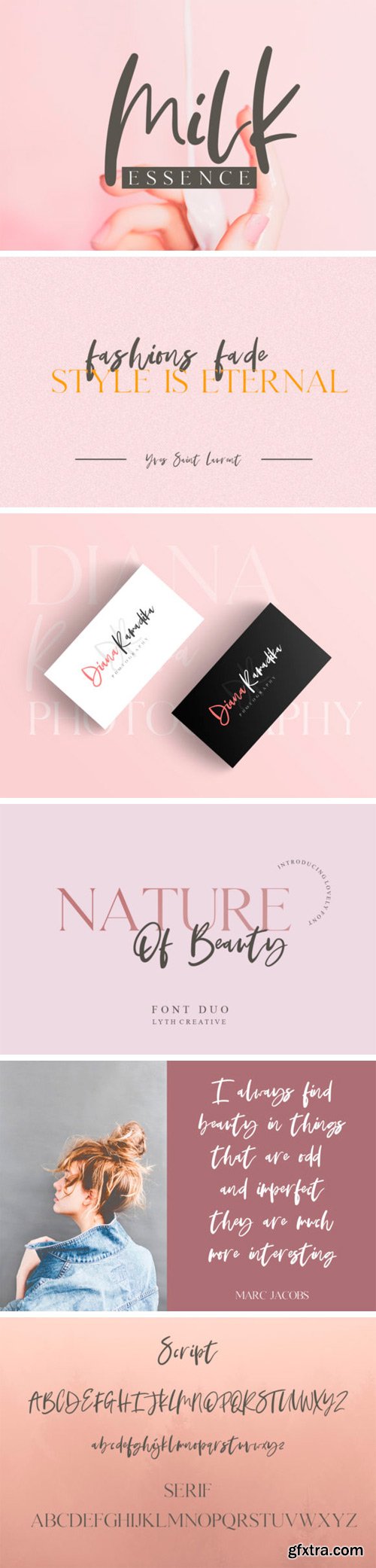
Nature of Beauty Duo Font
Nature of Beauty is a sweet font duo with a contemporary touch. This elegant font pair will easily add a unique touch on any creative project!